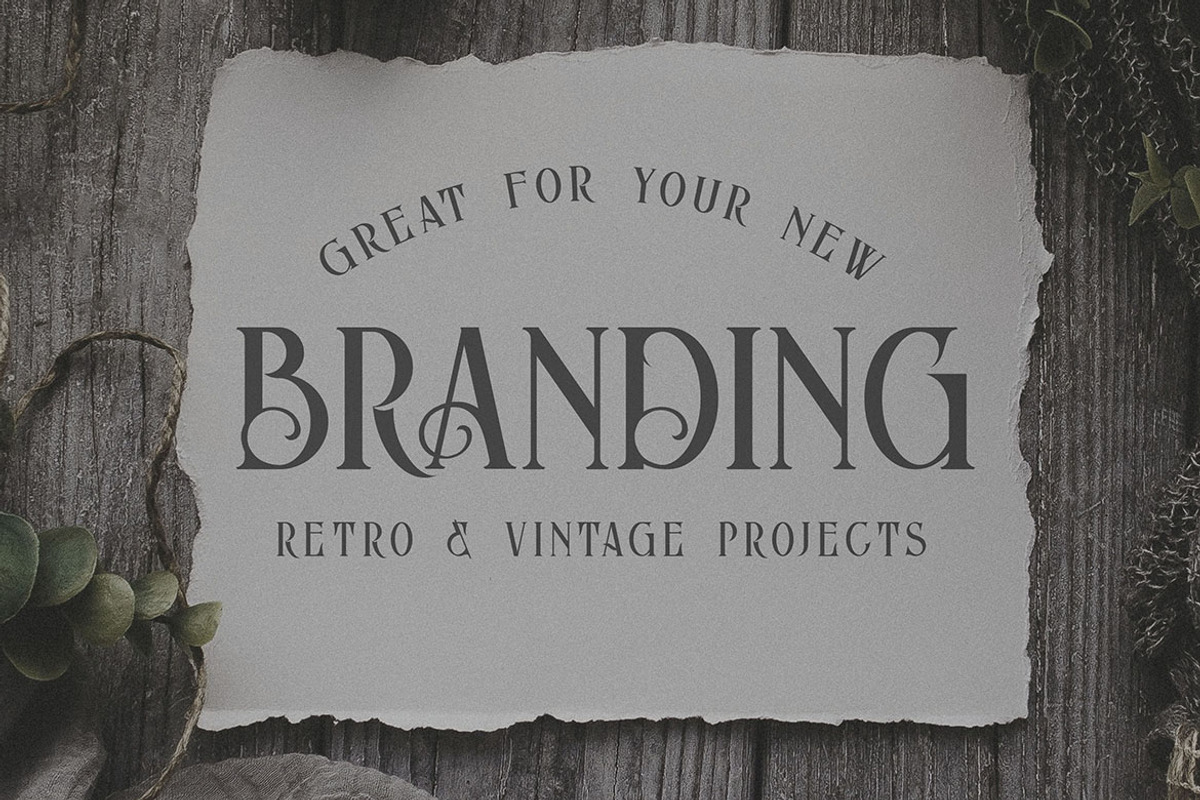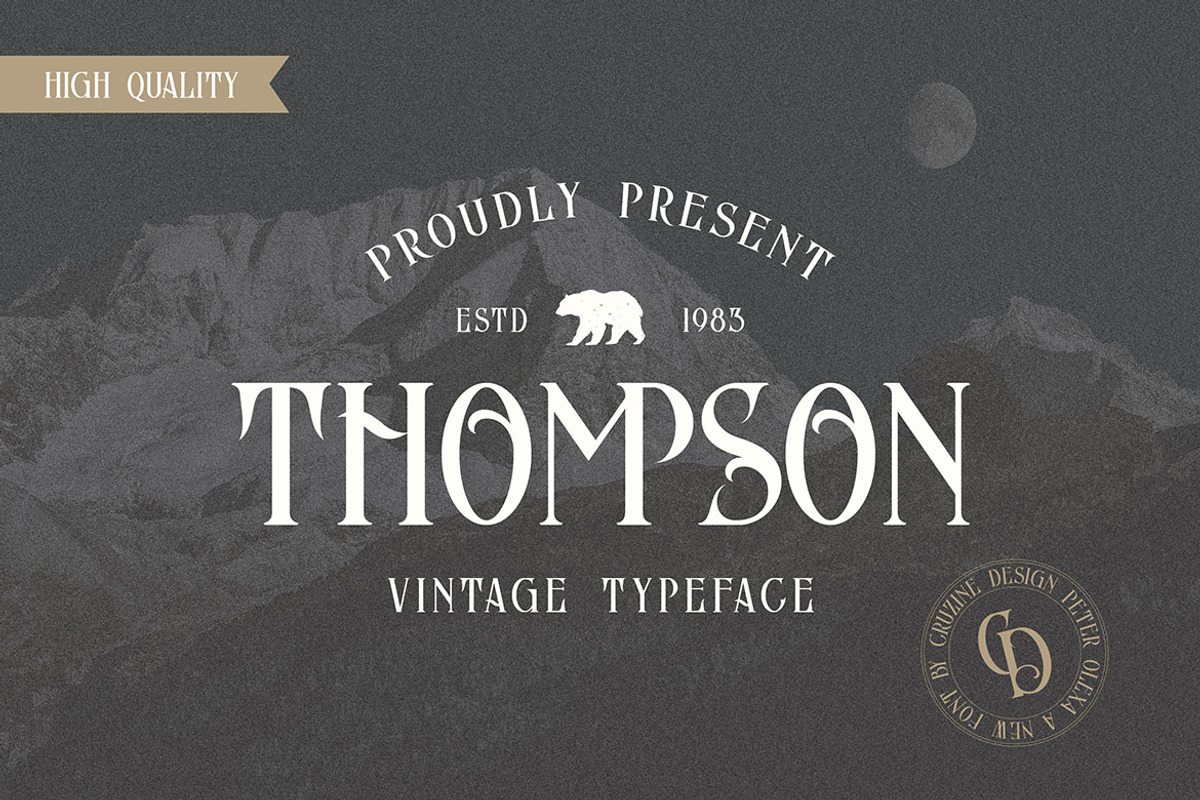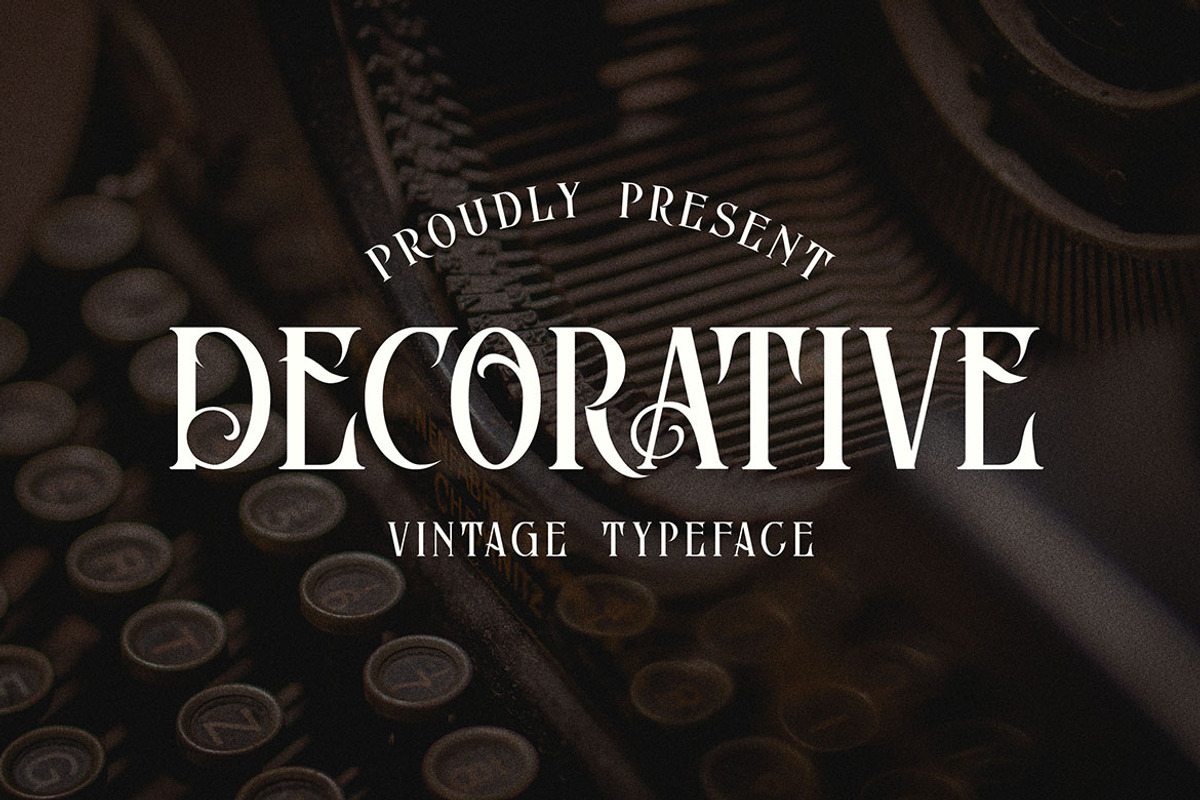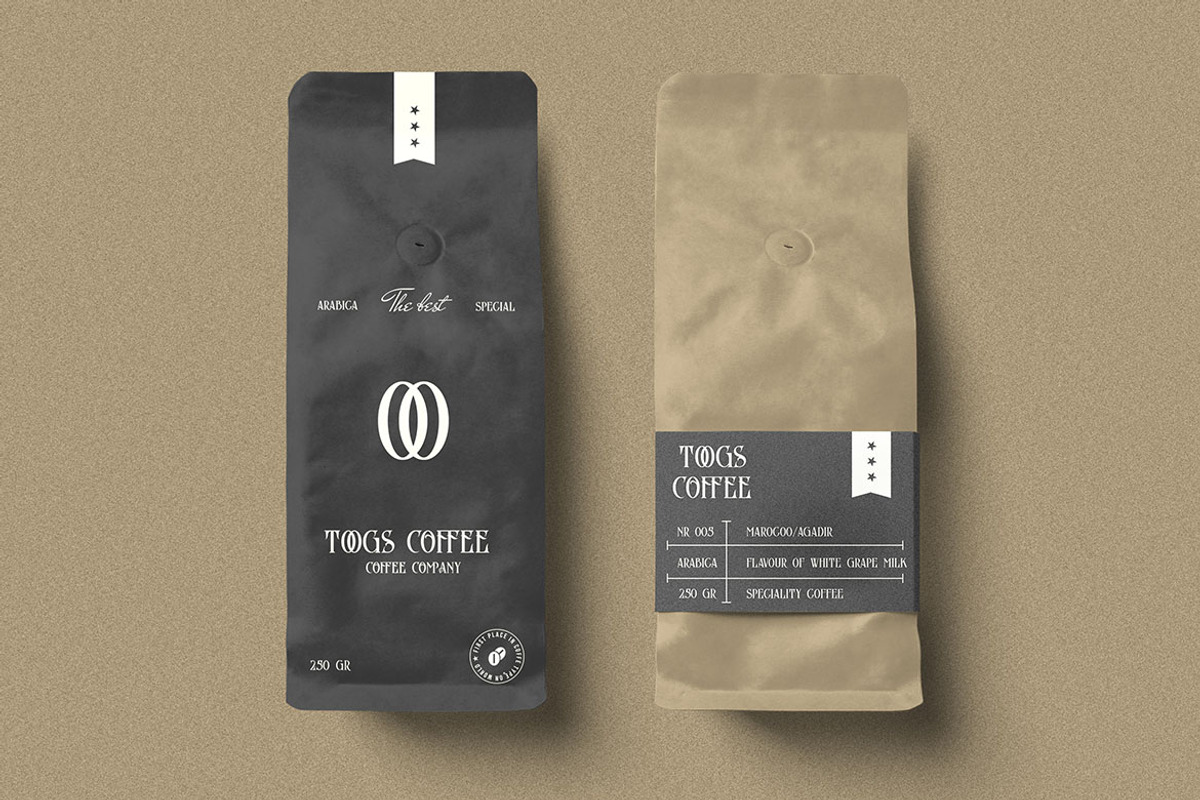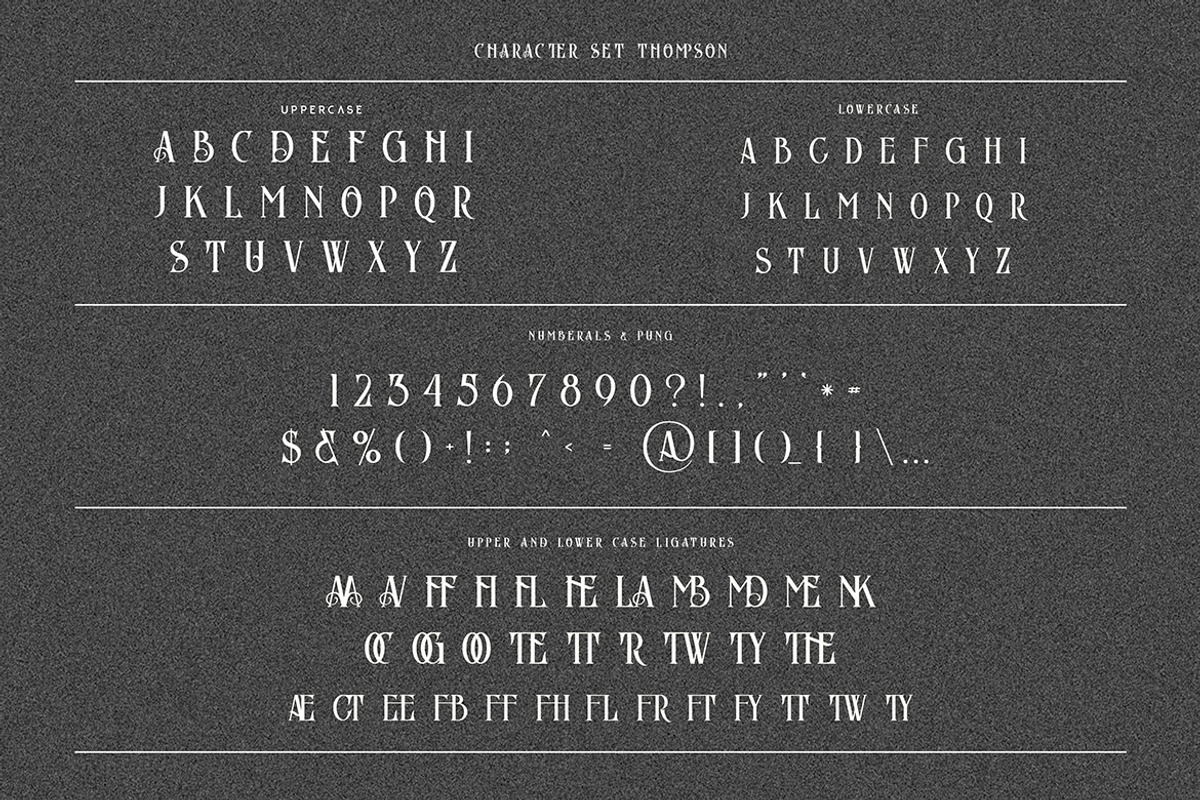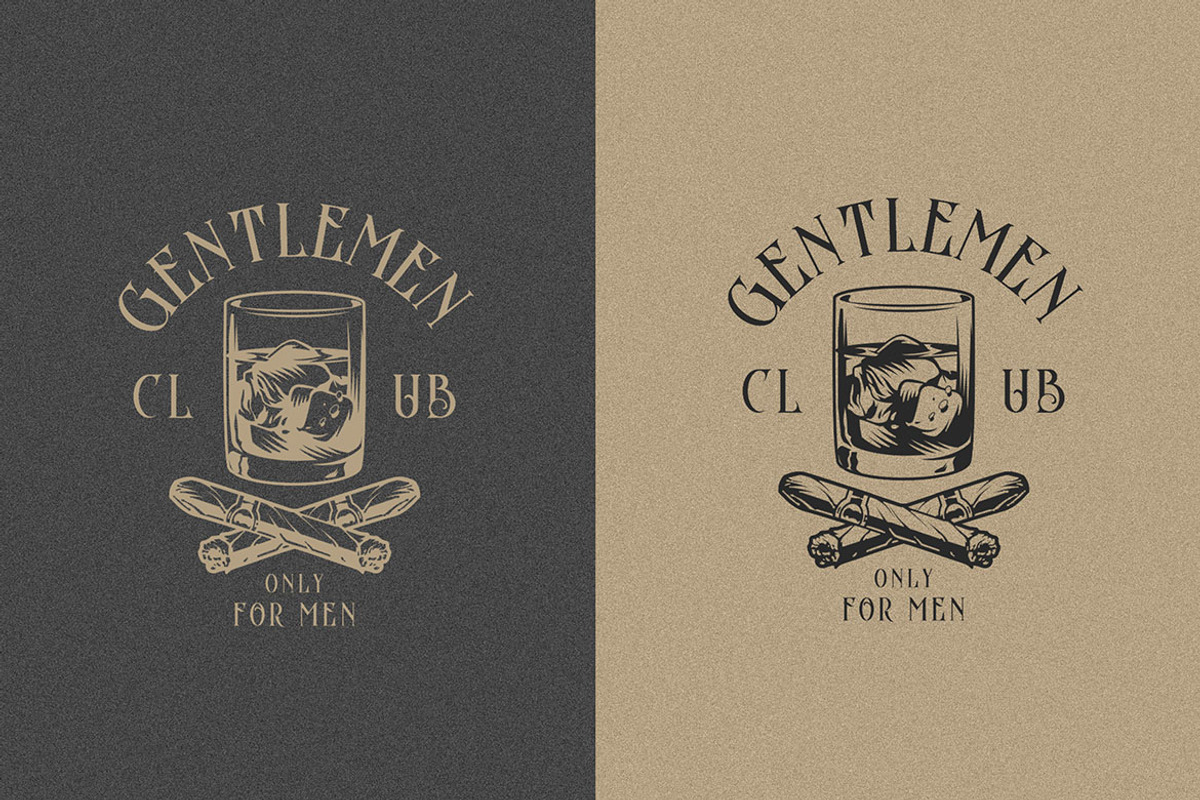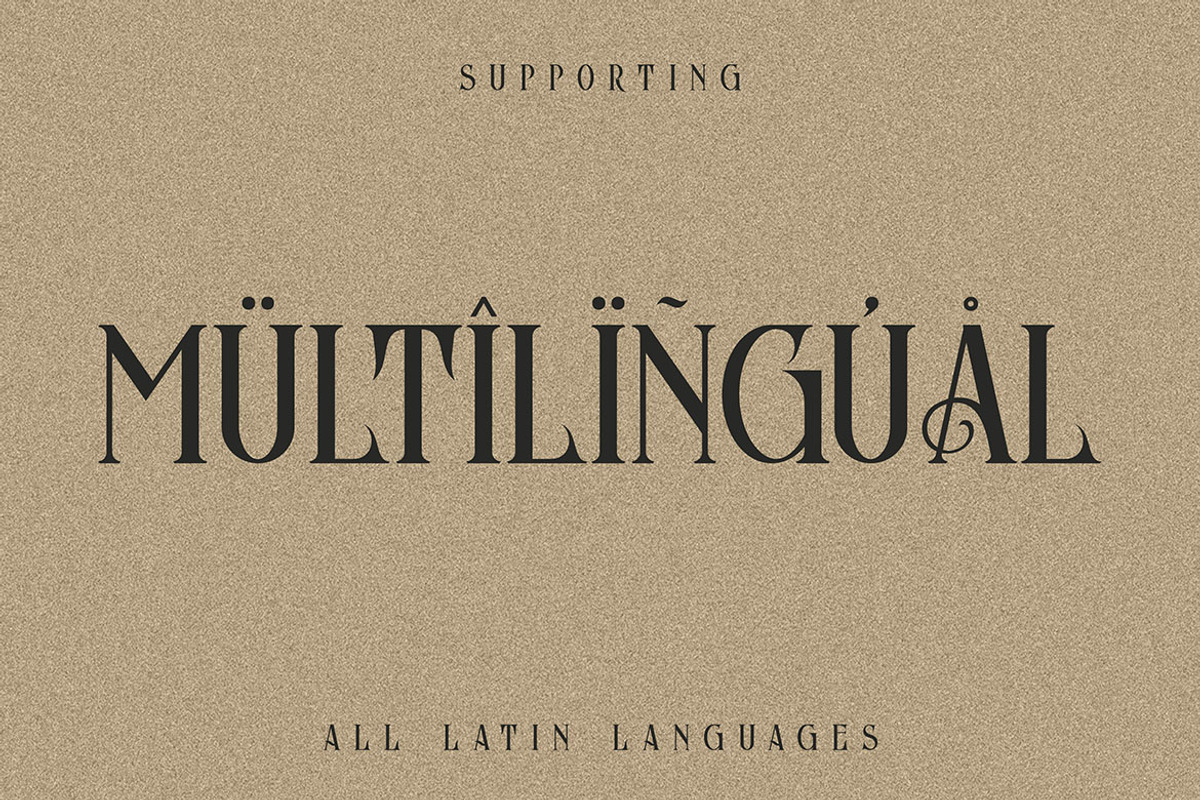
Unique retro, decorative & bold serif font. Comes with multilingual support & ligatures - great for your new logo or branding project.
- Great for retro or vintage style branding projects